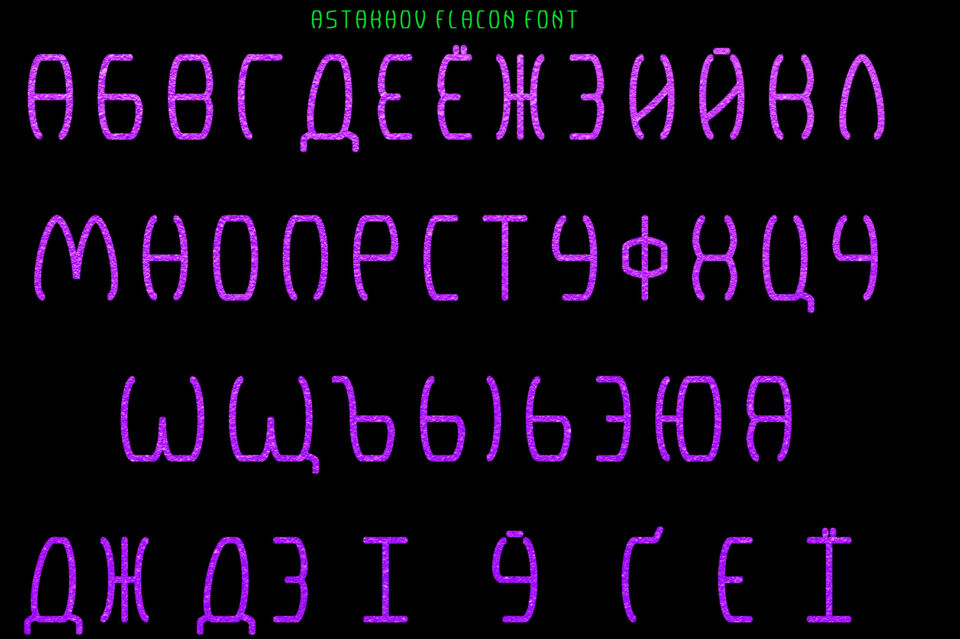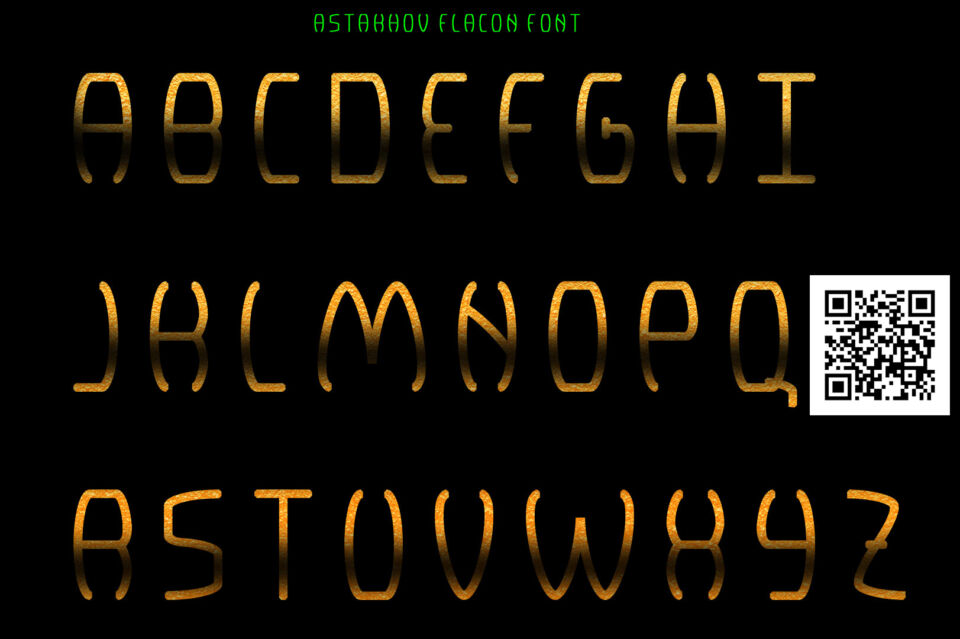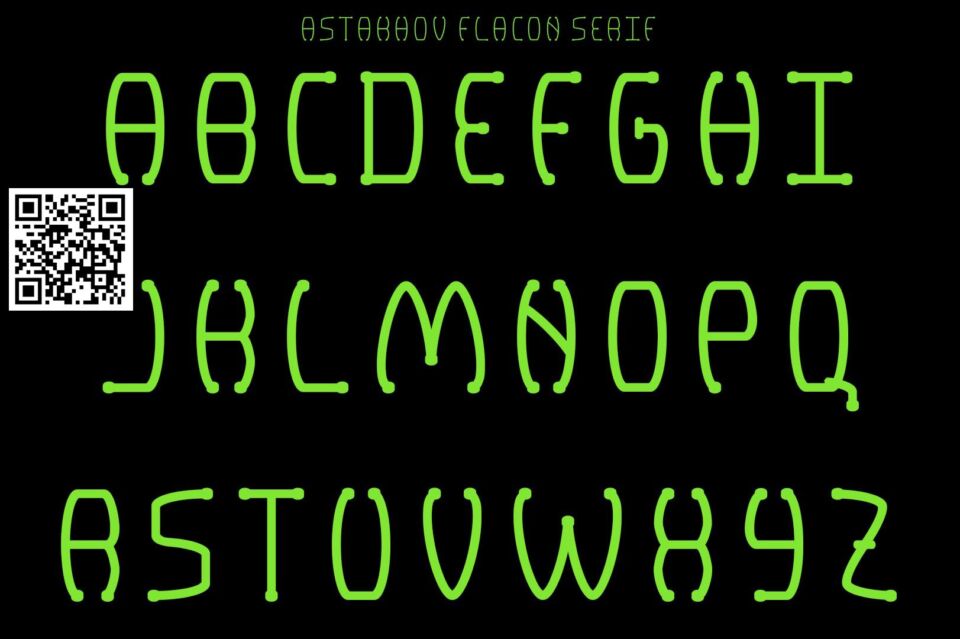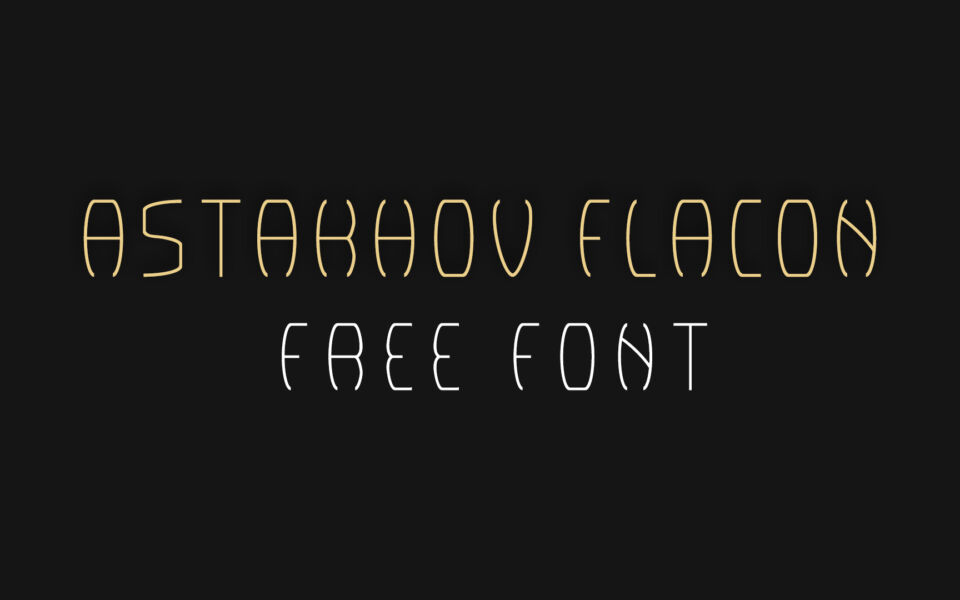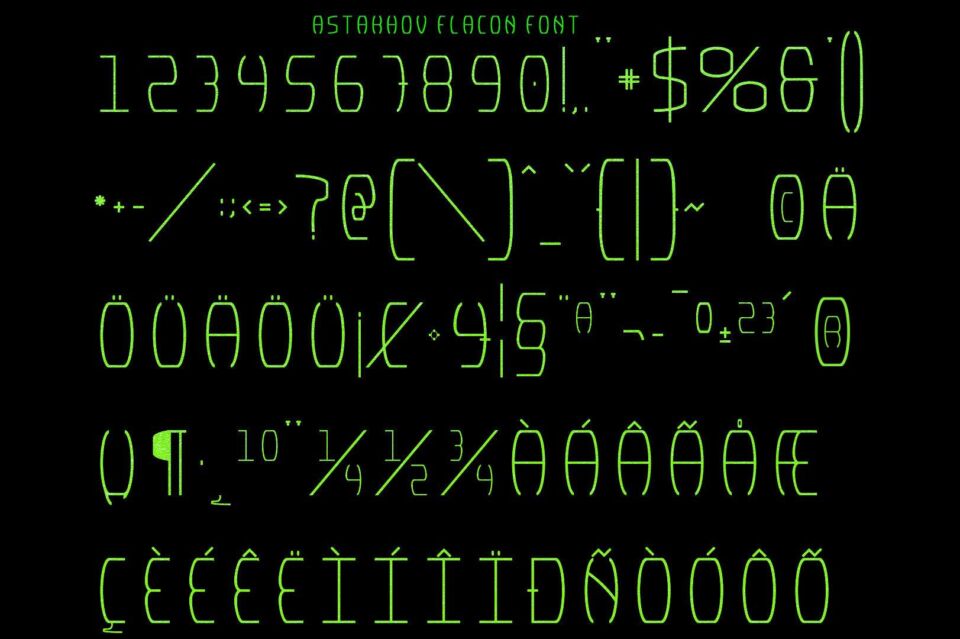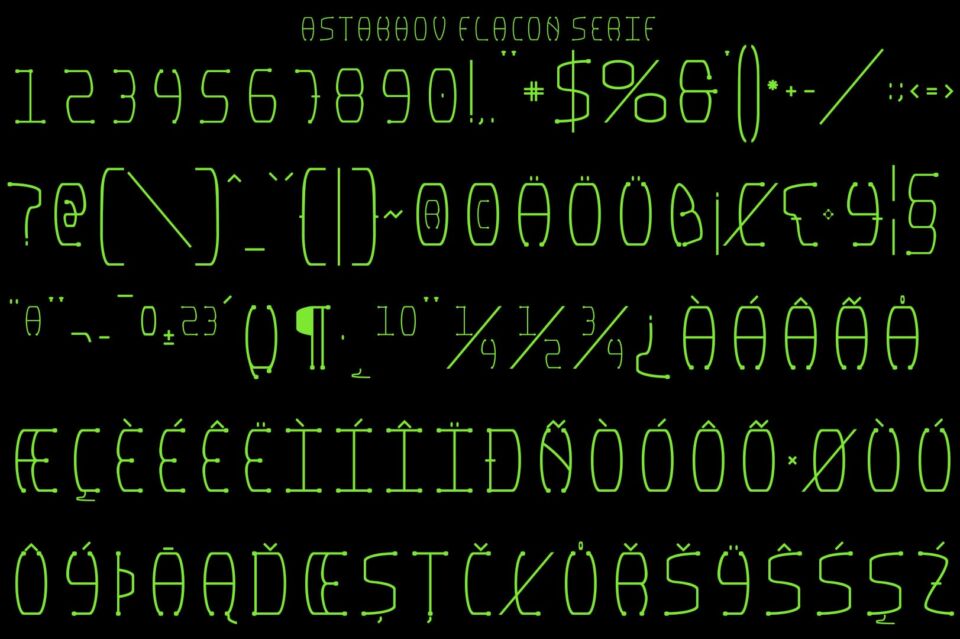
Astakhov Flacon is a geometric, tech-inspired typeface with a sleek, futuristic flair. Its clean, curvy lines and minimalistic monospaced design evoke a cyberpunk vibe, reminiscent of neon signs and digital screens.
With sharp precision and a modern edge, this font excels in tech branding, sci-fi posters, UI interfaces, and gaming graphics. Ideal for crafting bold futuristic logos or cutting-edge visuals, Astakhov Flacon offers a striking, innovative aesthetic.